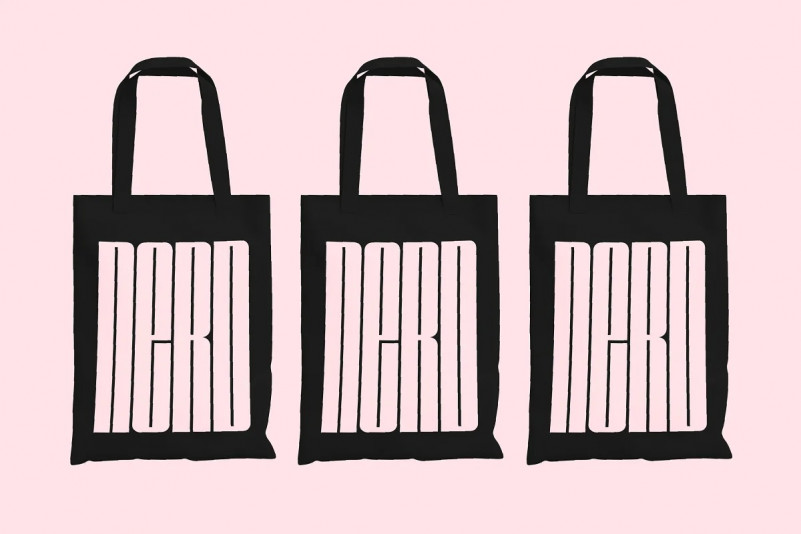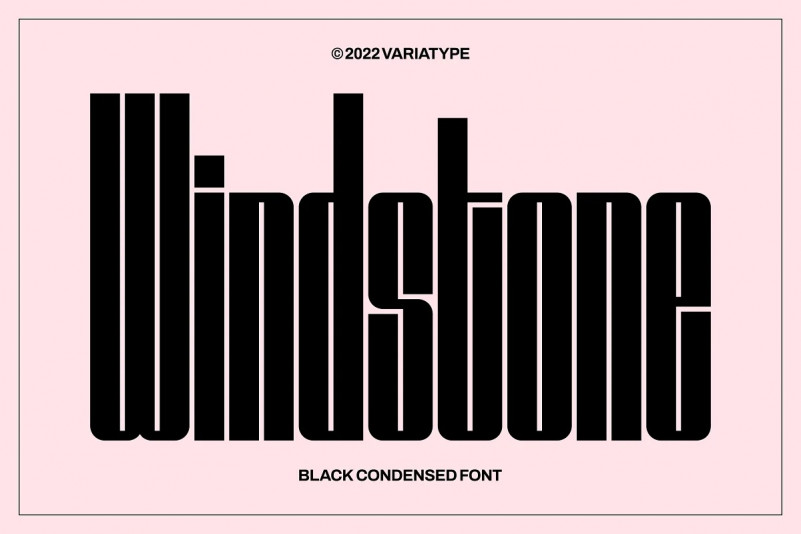
Windstone Sans Serif Font
Hello, this time we want to introduce a new product.  Windstone is a Black Ultra Condensed display sans font published by Variatype, available in regular and italic.